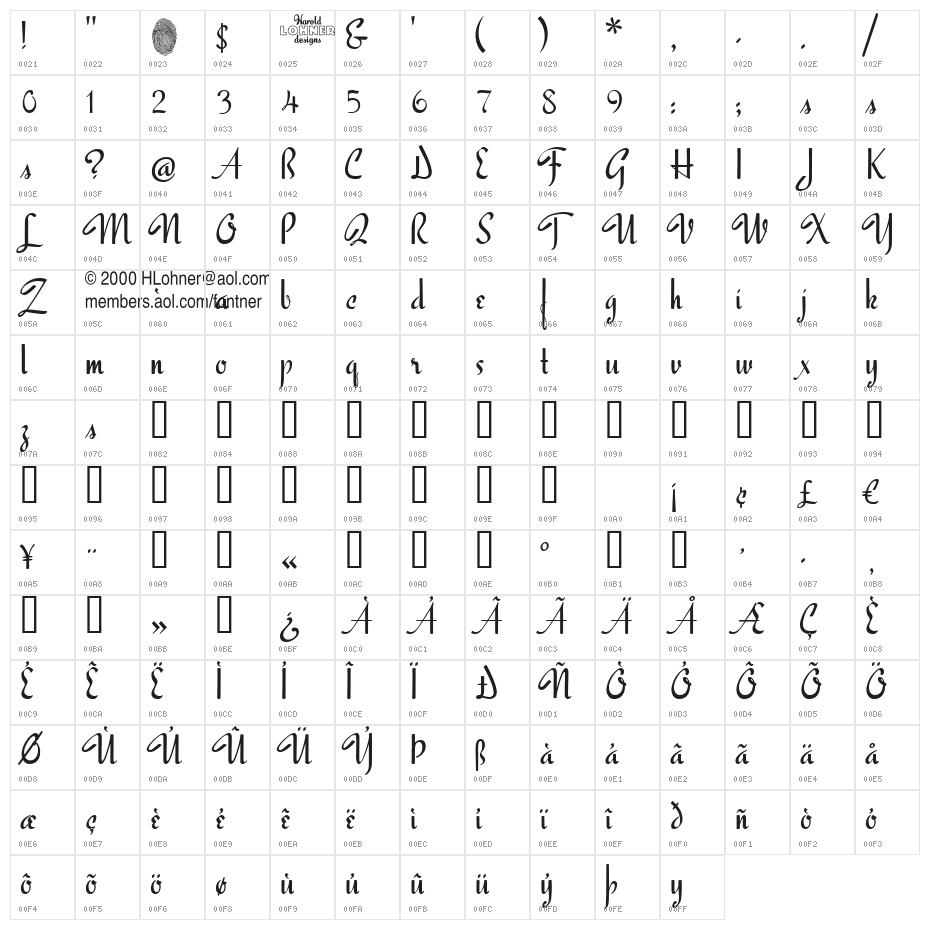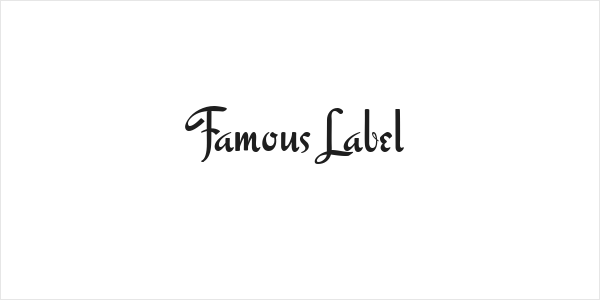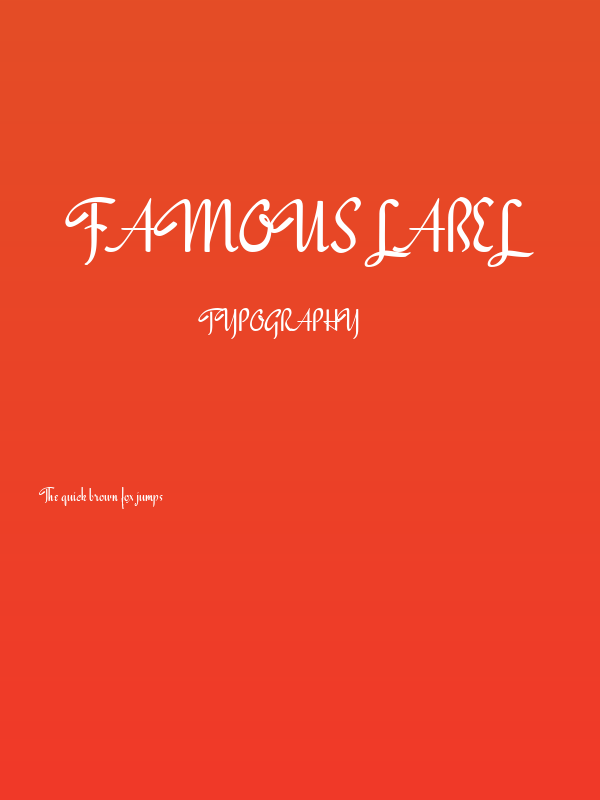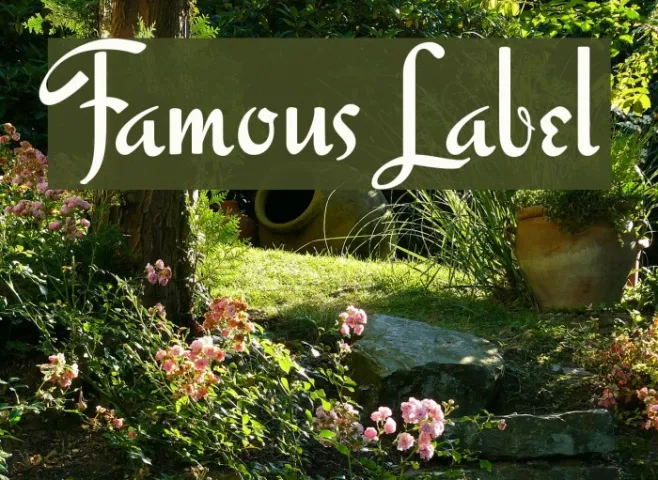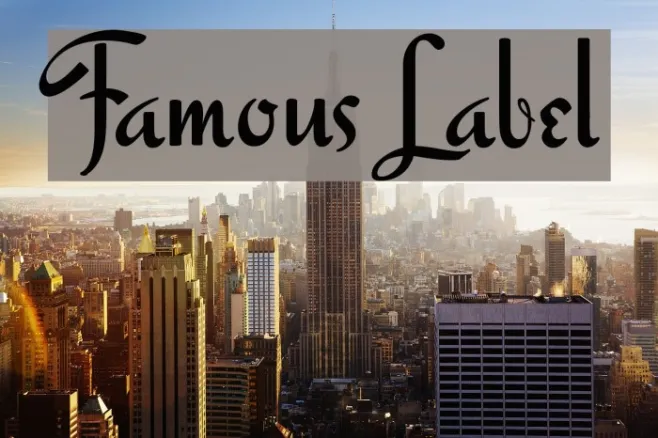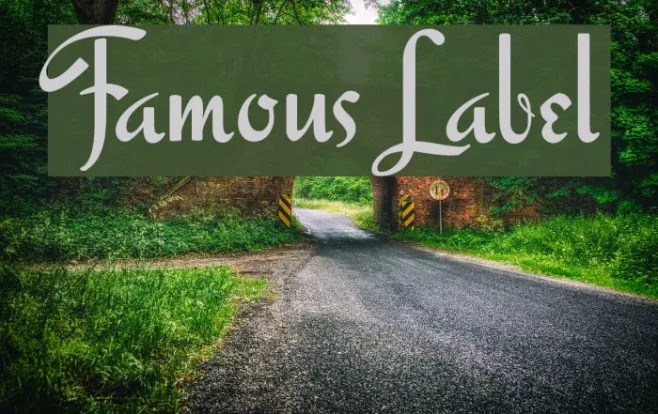
Famous Label Font
Famous Label Description
This font features a unique blend of elegance and flair, characterized by its flowing, cursive style. The uppercase letters exhibit a sophisticated, sweeping design with elongated strokes and subtle curves, while the lowercase letters maintain a more compact and rounded appearance. The numerals are distinct and easily readable, complementing the overall aesthetic. Special characters are creatively integrated, adding to the font's decorative appeal. The font's artistic nature makes it suitable for projects that require a touch of elegance and creativity.